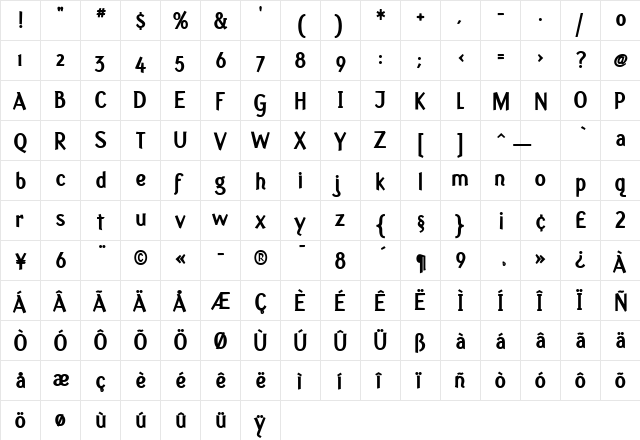
Fasciani-Senza ExtraBold
Design Context for Fasciani-Senza Typeface
Fasciani-Senza offers clean, dependable letterforms without strong stylistic allegiance, making it a practical choice for designers who need flexibility. Its bold stroke weight gives it real presence on the page.